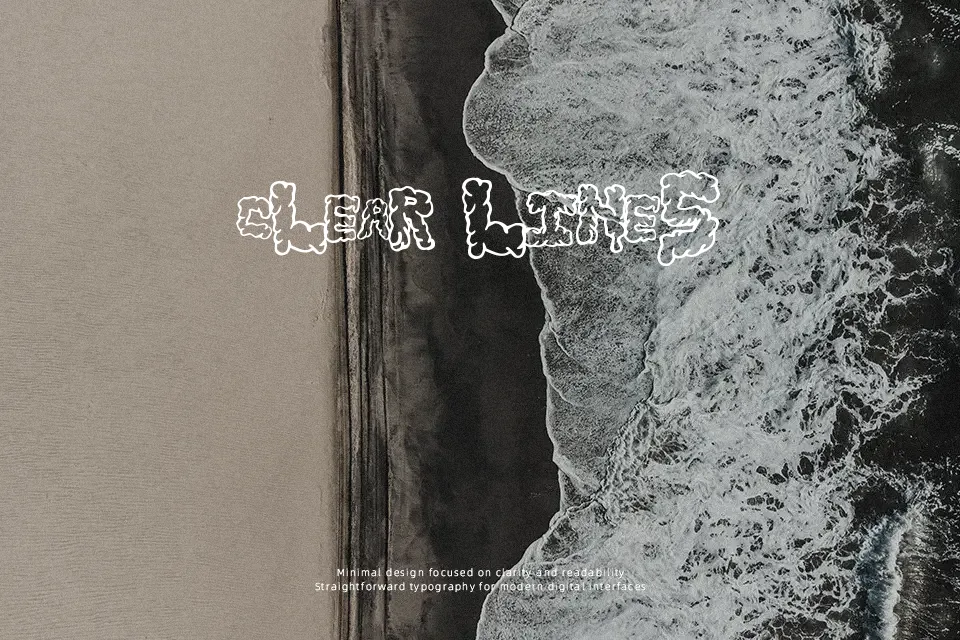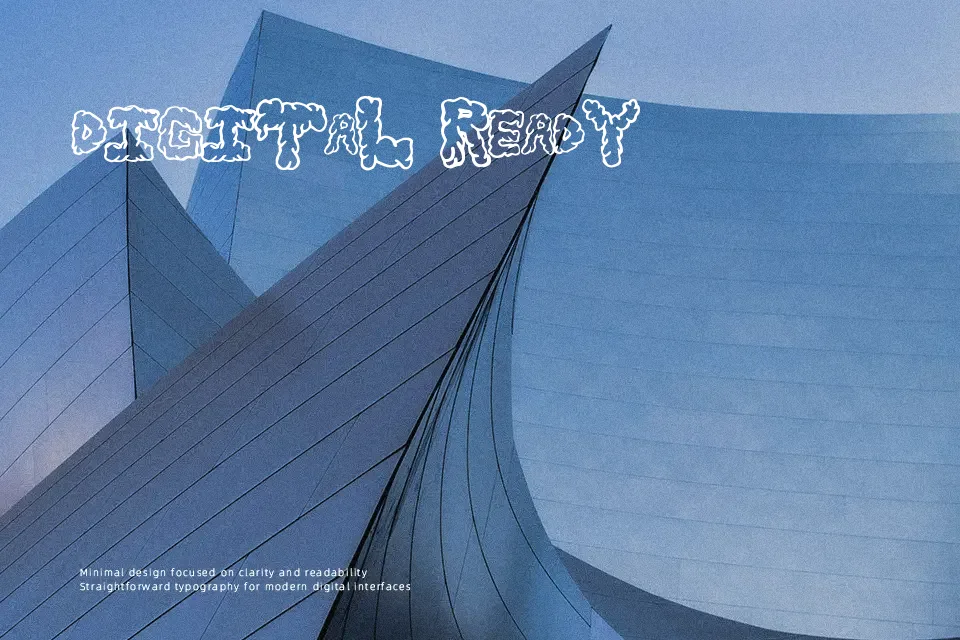
Slime Bawls Font
Slime Bawls Font uses inflated, uneven letterforms with heavy rounded strokes and a deliberately loose cartoon silhouette. Its broad proportions and irregular contours give uppercase and lowercase characters a bouncy, hand-drawn rhythm, while the open interior spaces help larger words remain recognizable. The typeface works best in short, high-visibility phrases such as poster titles, kids’ activity designs, and playful packaging. The spacing supports clear display settings, but the exaggerated forms make dense lines feel busy. It is a practical choice for expressive headlines rather than information-heavy copy, since small text and extended reading lose clarity.
Best For: children’s party invitations,playful poster headlines,candy packaging,cartoon game titles